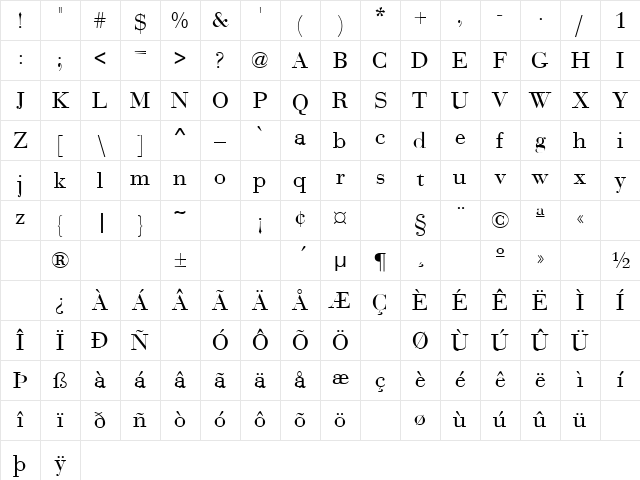
Complete Any Color 13 Regular glyph index. Displaying only characters natively supported by Any Color 13 Regular font.
Any Color 13 is a composed and adaptable typeface that performs quietly and consistently across a wide range of design contexts.